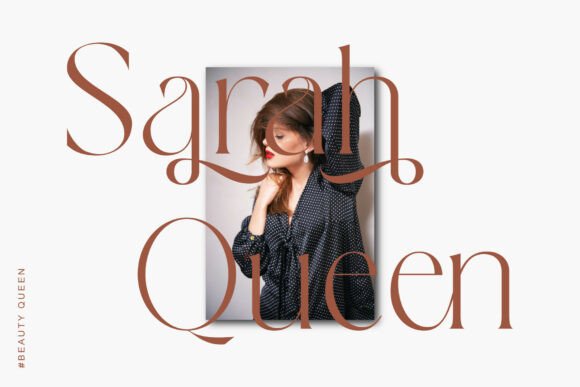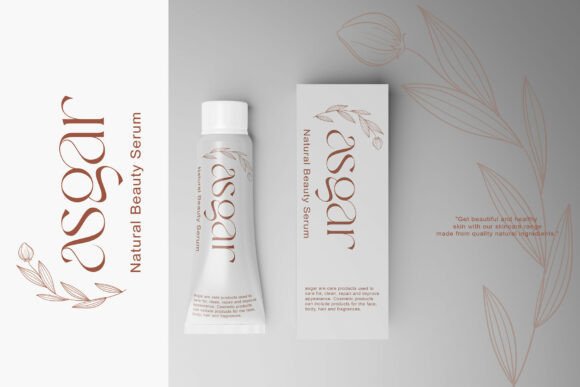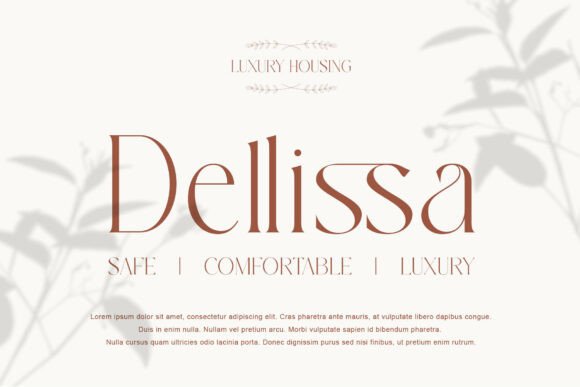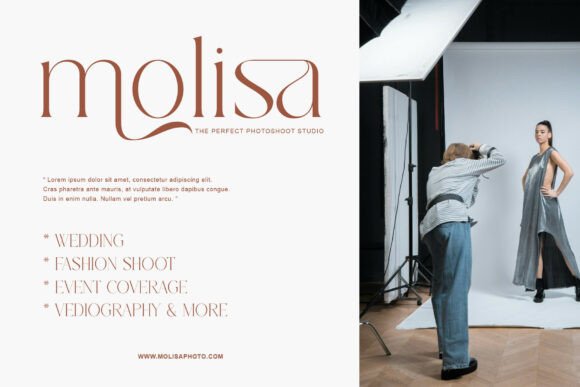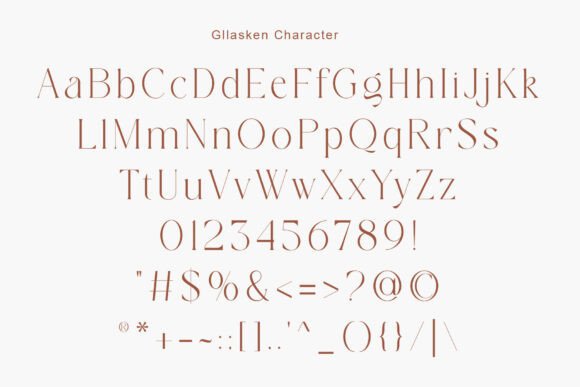
Introducing Glasken Font: Elevate Your Visual Storytelling with Editorial Elegance
In the realm of typography, few fonts manage to capture the essence of luxury and sophistication as effortlessly as Glasken. This modern luxury font is meticulously crafted for high-end visual storytelling, offering a unique blend of traditional prestige and contemporary artistry. Glasken is not just a typeface; it’s an experience, designed to bring an unparalleled level of editorial grace to your projects.
The Anatomy of Glasken: A Masterclass in Fluid Movement
At the heart of Glasken’s design is a slender serif skeleton, reimagined with dramatic, calligraphic swashes that infuse the font with a sense of fluid, organic movement. This distinctive feature allows Glasken to bridge the gap between classic elegance and modern sophistication, making it an extraordinary choice for a variety of applications, from high-fashion branding and luxury cosmetic labels to boutique wine packaging and cinematic editorial headers.
Unyielding Professional Authority and Polished Artisanal Beauty
Glasken brings a dual benefit to your visual identity: it delivers a sense of unyielding professional authority and polished artisanal beauty. Every word set in Glasken feels like a curated piece of legendary design, ensuring that your brand or project stands out with an aura of luxury and exclusivity. Whether you’re aiming to make a statement in the world of high fashion, cosmetics, wine, or cinema, Glasken provides the typographic excellence needed to elevate your visual storytelling.
Applications of Glasken: Where Luxury Meets Artistry
The versatility of Glasken makes it suitable for a wide range of applications where luxury and sophistication are paramount. Some of the key areas where Glasken shines include:
- High-Fashion Branding: Glasken’s elegant and sophisticated design makes it a perfect fit for luxury fashion brands looking to make a statement.
- Luxury Cosmetic Labels: The font’s dramatic swashes and slender serifs bring a touch of glamour and sophistication to cosmetic branding.
- Boutique Wine Packaging: Glasken adds a classy and refined touch to wine packaging, reflecting the premium quality of the wine.
- Cinematic Editorial Headers: For film and editorial projects, Glasken provides a typographic solution that commands attention and exudes professionalism.
Why Choose Glasken?
Choosing Glasken for your typography needs comes with several advantages:
- Unique Aesthetic: Glasken offers a unique blend of traditional and modern elements, setting it apart from more conventional typefaces.
- Versatility: Its adaptability across various mediums and applications makes Glasken a valuable asset for designers and brands.
- Impact: Glasken’s dramatic and elegant design ensures that your visual communications leave a lasting impression.
| Font Name | Gllasken Font |
| Author | Muflieart |
Glasken is more than just a font; it’s a statement of luxury, sophistication, and editorial excellence. By incorporating Glasken into your visual storytelling, you’re not just choosing a typeface; you’re elevating your brand or project to new heights of elegance and professionalism. Experience the pinnacle of editorial grace with Glasken and discover how this modern luxury font can transform your visual identity.
Whether you’re a designer looking for a typographic solution that embodies luxury and artistry or a brand aiming to make a sophisticated statement, Glasken is poised to become your go-to choice for high-end visual communications.